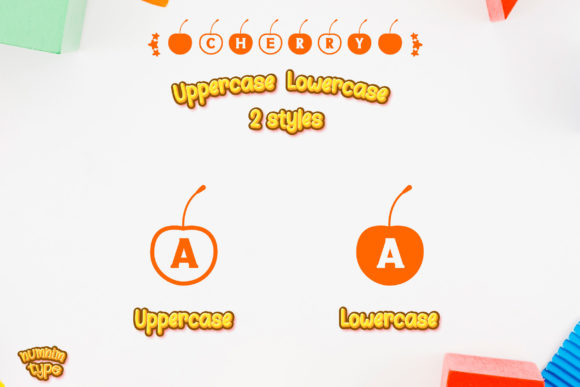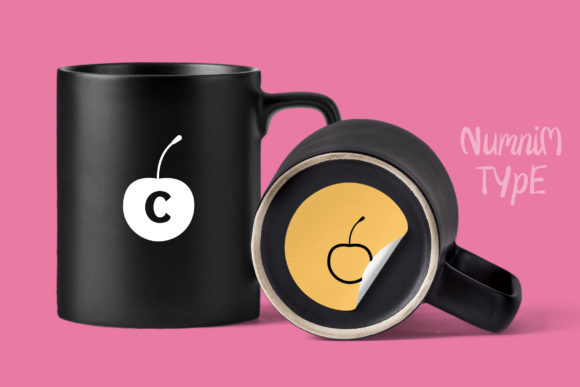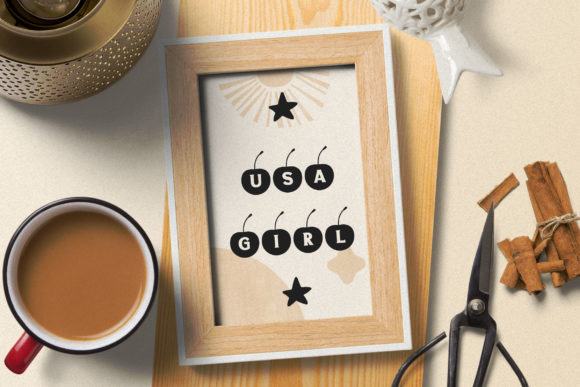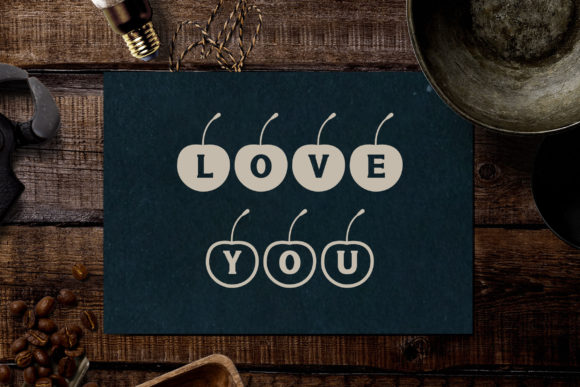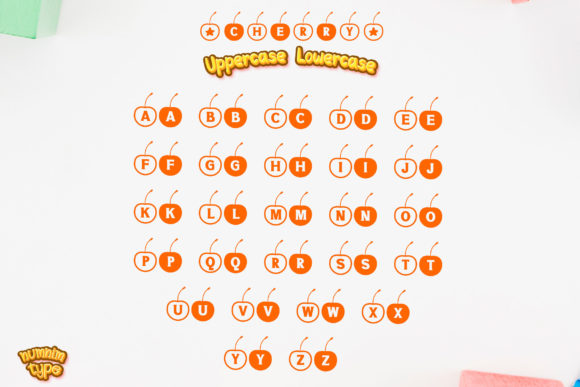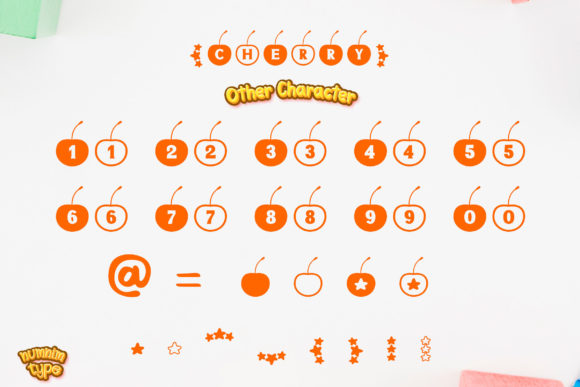
Introducing Cherry Font: The Ultimate Decorative Font for Creative Projects
Are you a designer, crafter, or DIY enthusiast looking for a unique and playful font to elevate your creative projects? Look no further than Cherry Font, a cool and uniquely crafted decorative font that’s perfect for a wide range of applications. From stickers and mugs to event invitations and ornaments, Cherry Font is the ideal choice for anyone seeking to add a touch of fun and personality to their designs.
What Makes Cherry Font So Special?
Cherry Font is a standout decorative font that’s been carefully crafted to bring a sense of playfulness and whimsy to your designs. Its fun and playful characters are sure to capture the attention of your audience and leave a lasting impression. Whether you’re creating stickers, t-shirts, or summer event cards, Cherry Font is the perfect choice for adding a personal touch to your projects.
One of the best things about Cherry Font is its versatility. This amazing font can be used for a wide range of creative projects, including:
- Stickers: Add a pop of personality to your stickers with Cherry Font’s playful characters.
- Mugs: Create unique and eye-catching mug designs that are sure to stand out.
- T-shirts: Take your t-shirt designs to the next level with Cherry Font’s fun and quirky style.
- Ornaments: Add a touch of whimsy to your ornaments with Cherry Font’s decorative characters.
- Summer Event Cards: Create stunning summer event cards that will leave a lasting impression on your guests.
- Event Invitations: Make your event invitations truly special with Cherry Font’s unique and playful style.
Why Choose Cherry Font?
So why choose Cherry Font over other decorative fonts on the market? Here are just a few reasons why Cherry Font stands out:
- Unique and playful characters that add a touch of personality to your designs.
- Perfect for a wide range of creative projects, from stickers to event invitations.
In conclusion, Cherry Font is a cool and uniquely crafted decorative font that’s perfect for anyone looking to add a touch of personality to their designs. With its fun and playful characters, PUA encoding, and endless creative possibilities, Cherry Font is the ultimate choice for designers, crafters, and DIY enthusiasts. Whether you’re creating stickers, mugs, or event invitations, Cherry Font is sure to bring a sense of whimsy and playfulness to your projects. So why wait? Download Cherry Font today and start creating stunning designs that will leave a lasting impression!